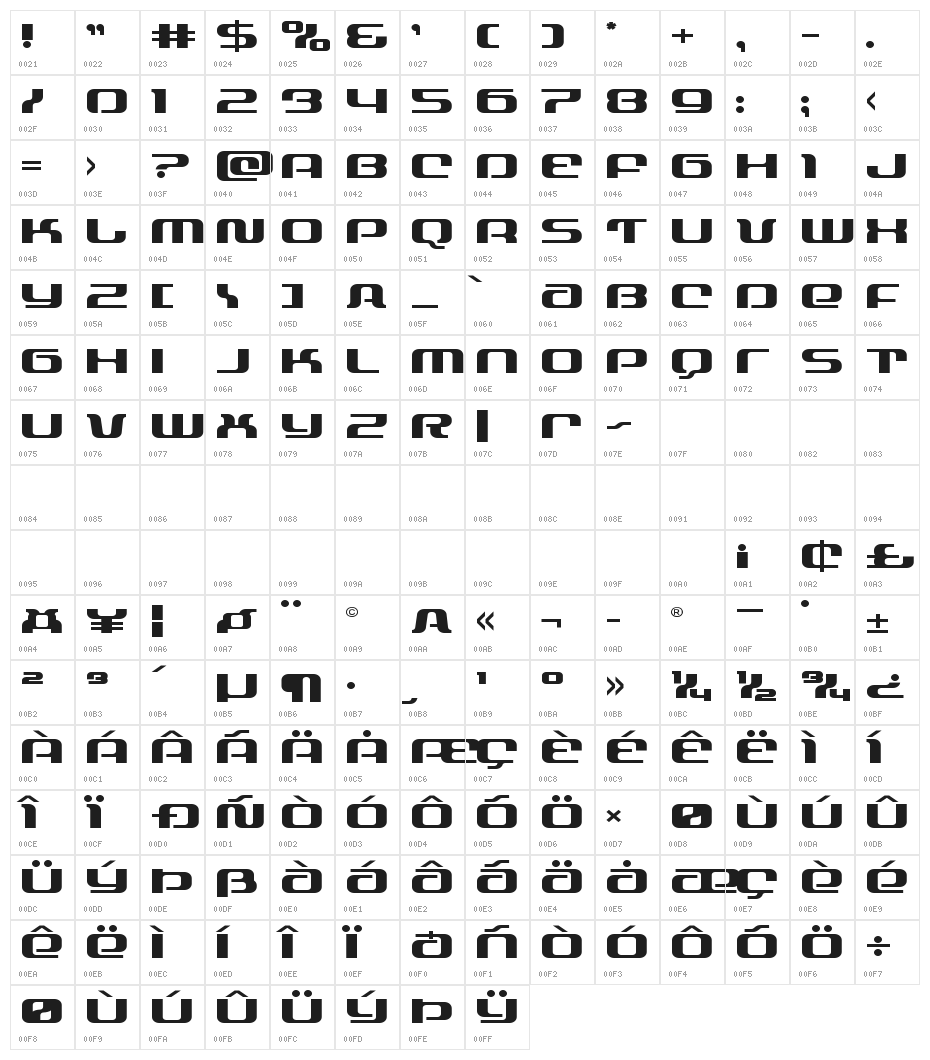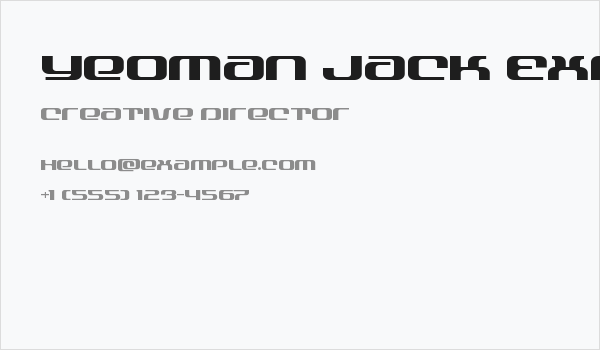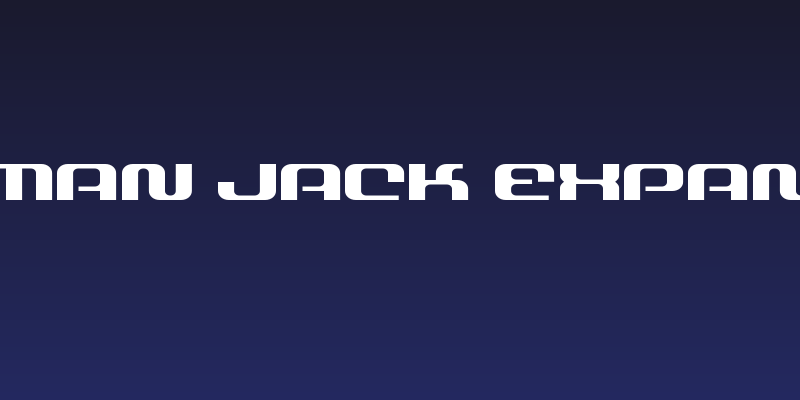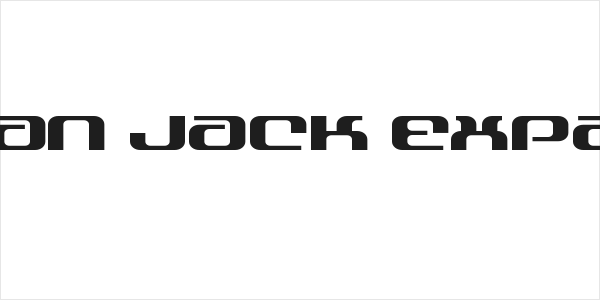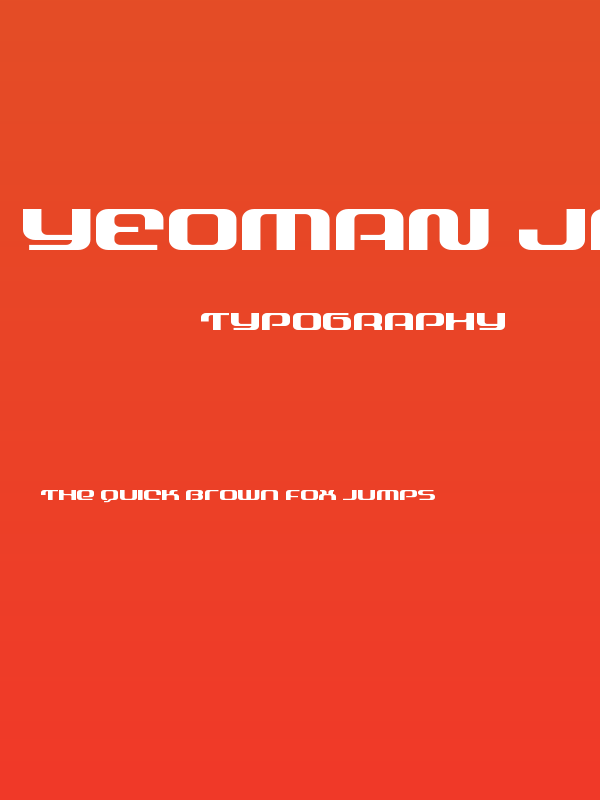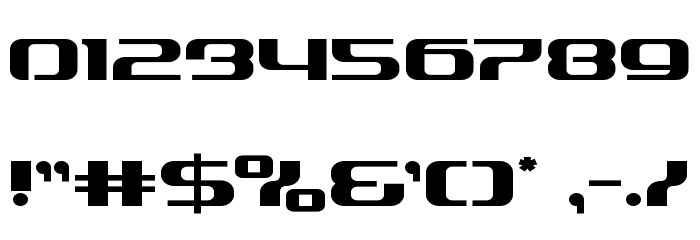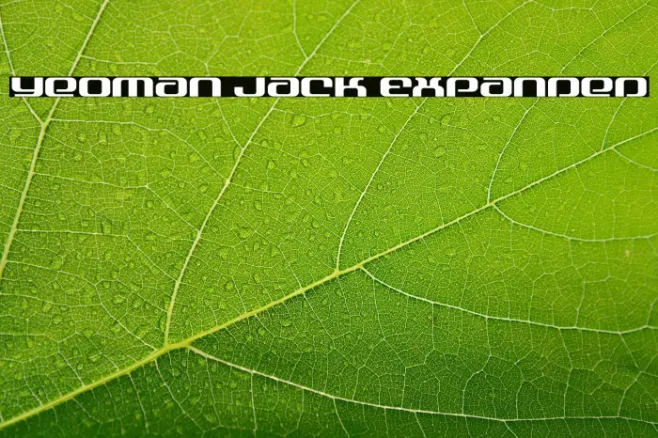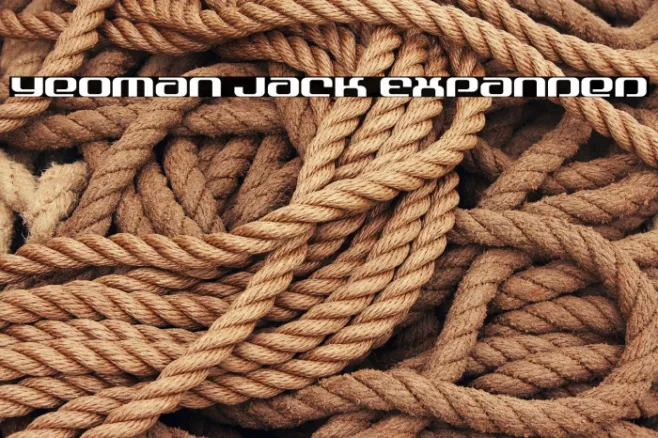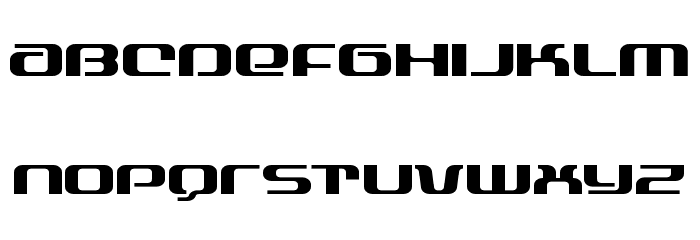
Yeoman Jack Expanded Font
Yeoman Jack Expanded Description
This font features a bold and futuristic design with a distinct geometric structure. The characters are wide and have a strong presence, making them ideal for attention-grabbing headlines. The uppercase and lowercase letters share a similar style, with rounded edges and a consistent stroke width that adds to the modern aesthetic. The numbers and special characters maintain the same boldness and geometric form, ensuring a cohesive look across all text elements. The font's expanded width gives it a unique and impactful appearance, suitable for projects that require a modern and dynamic feel.
| Proposed Projects | Ideal for technology branding, sci-fi posters, video game titles, and modern advertising campaigns. |